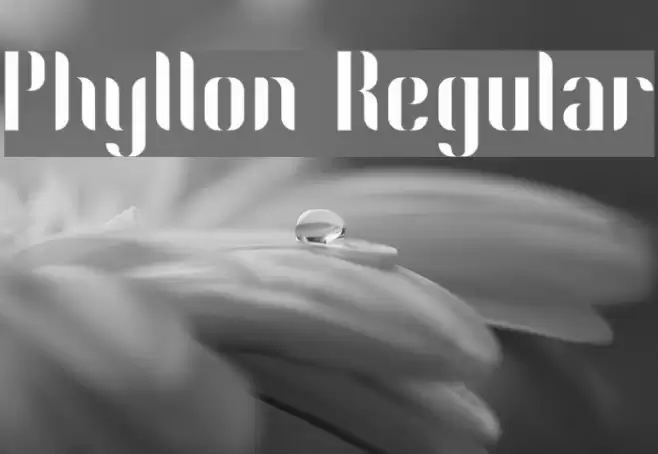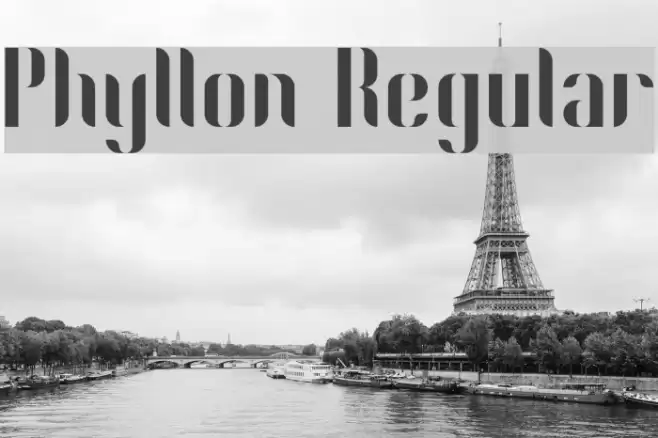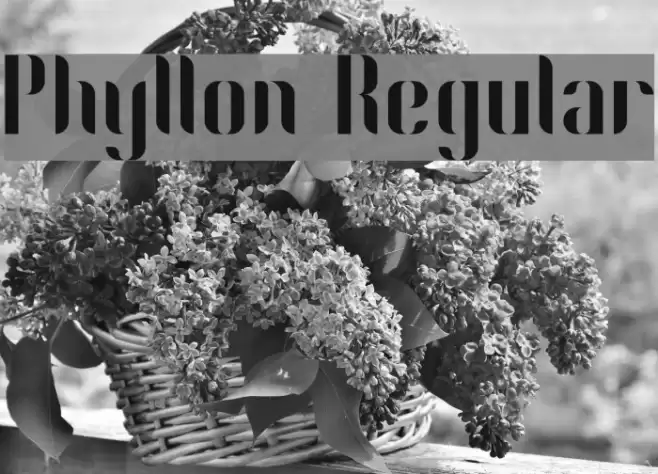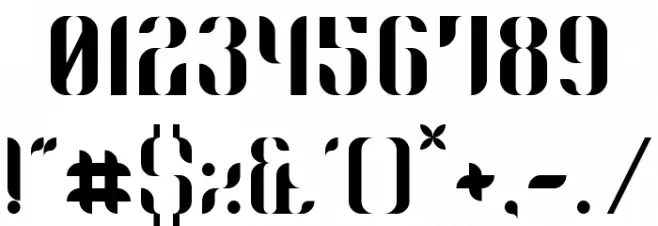
Phyllon Regular Font
Phyllon Regular Description
This font features a bold, modern design with a unique stencil-like appearance. The characters are constructed with thick, solid strokes and distinct cut-out sections, creating a striking visual effect. The uppercase and lowercase letters maintain a consistent style, with rounded edges and geometric shapes. Numbers and special characters follow the same design principles, ensuring uniformity across all glyphs. The font's distinctiveness makes it ideal for attention-grabbing designs.
A bold, modern stencil-like font with geometric shapes and cut-out sections from Uncategorized fonts.
- Proposed Projects: Ideal for branding, poster design, packaging, and any project requiring a bold, modern aesthetic.